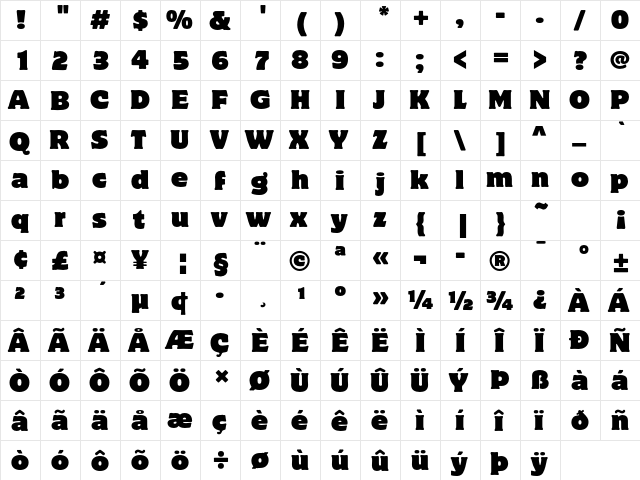
Motter Corpus Std Regular
| Designer | Othmar Motter |
Design Context for Motter Corpus Std Typeface
Motter Corpus Std takes a measured approach to typography — its balanced proportions and neutral character make it a reliable workhorse for both digital and print work.